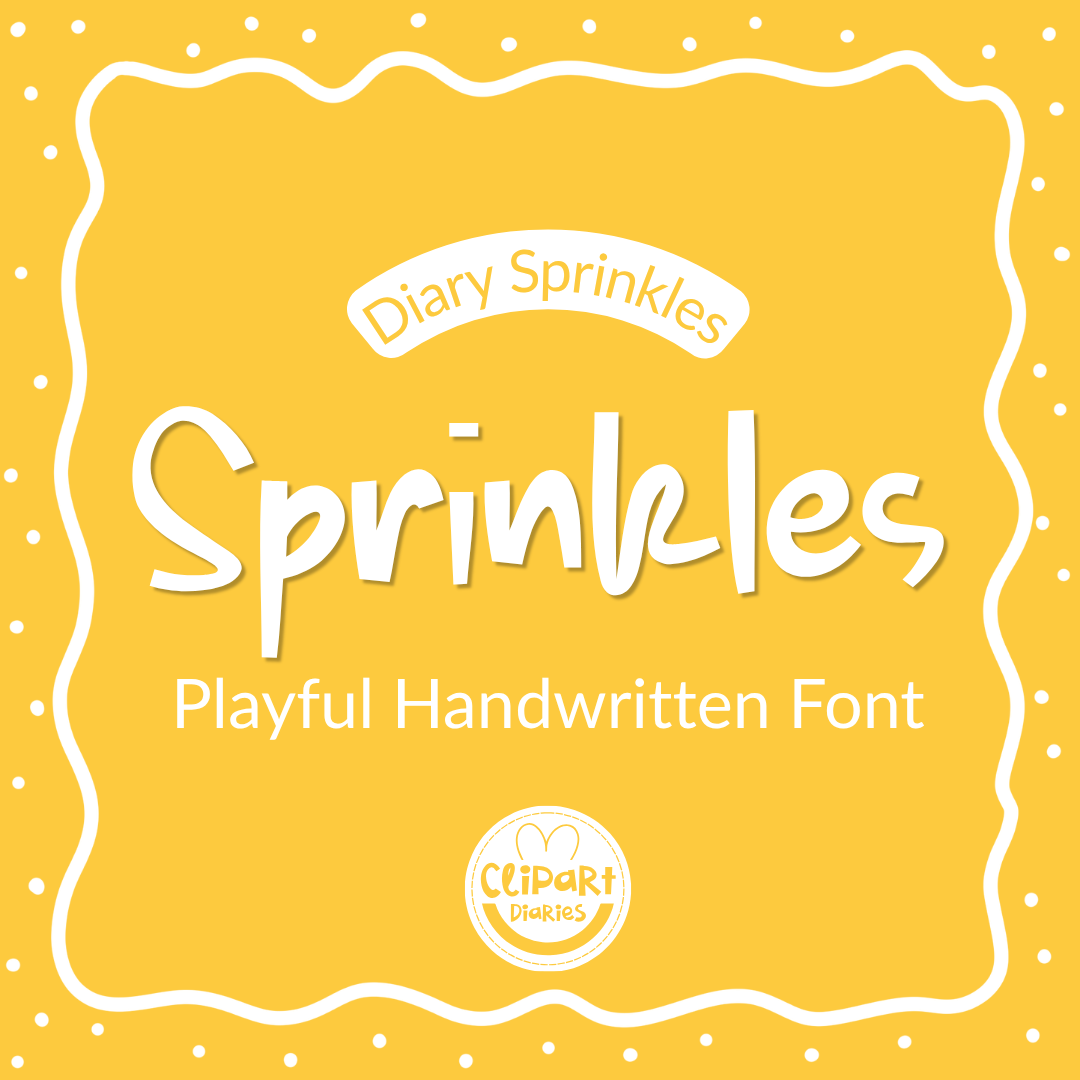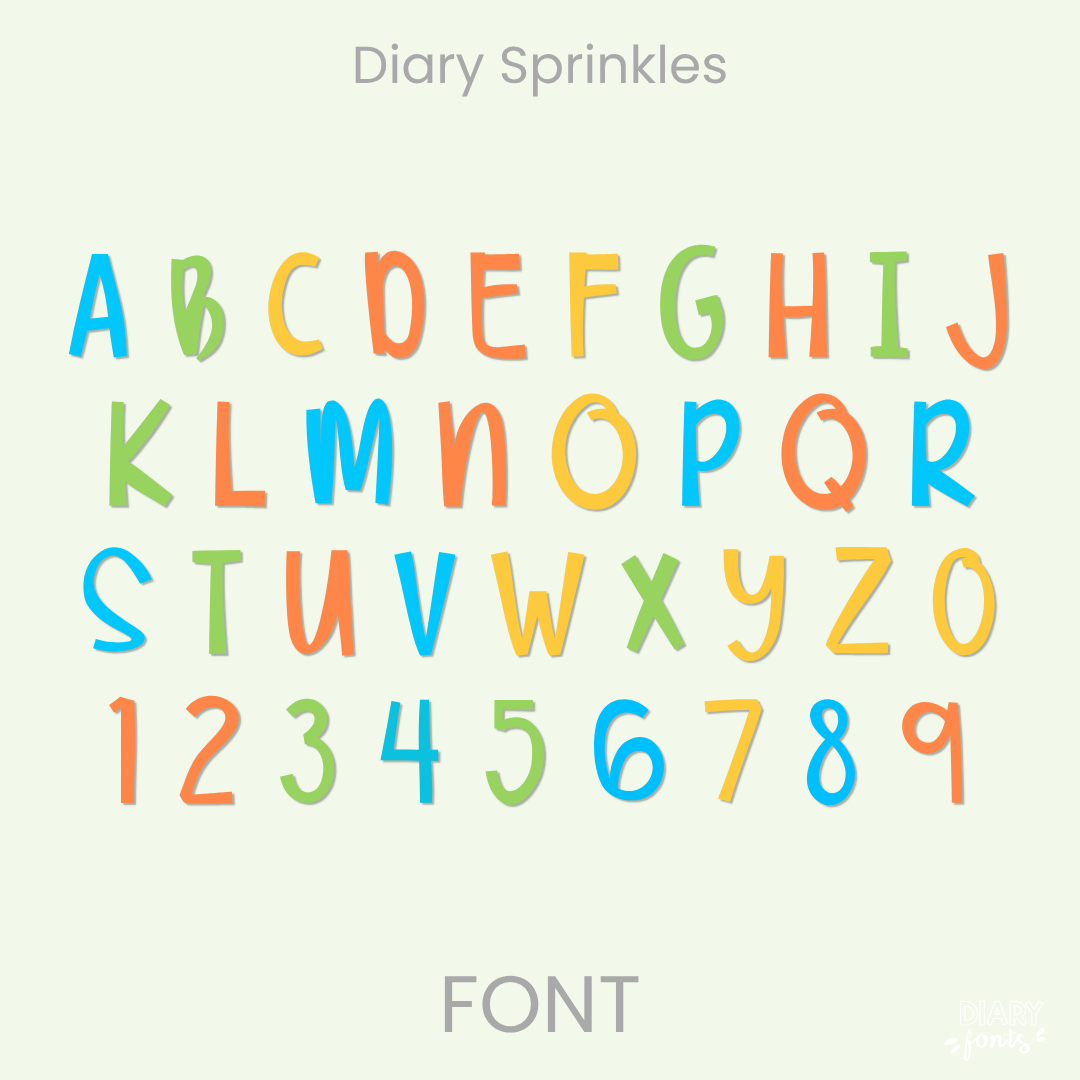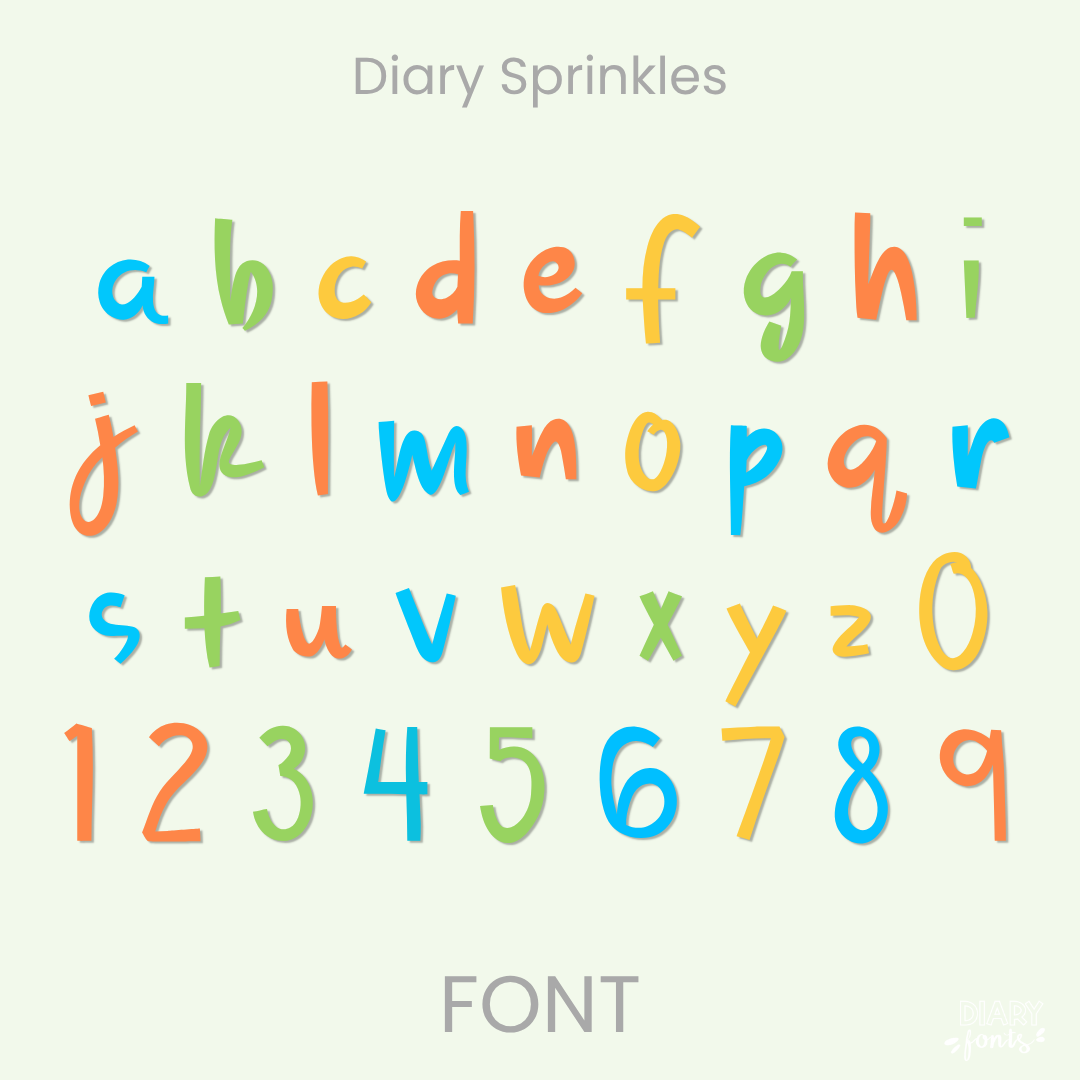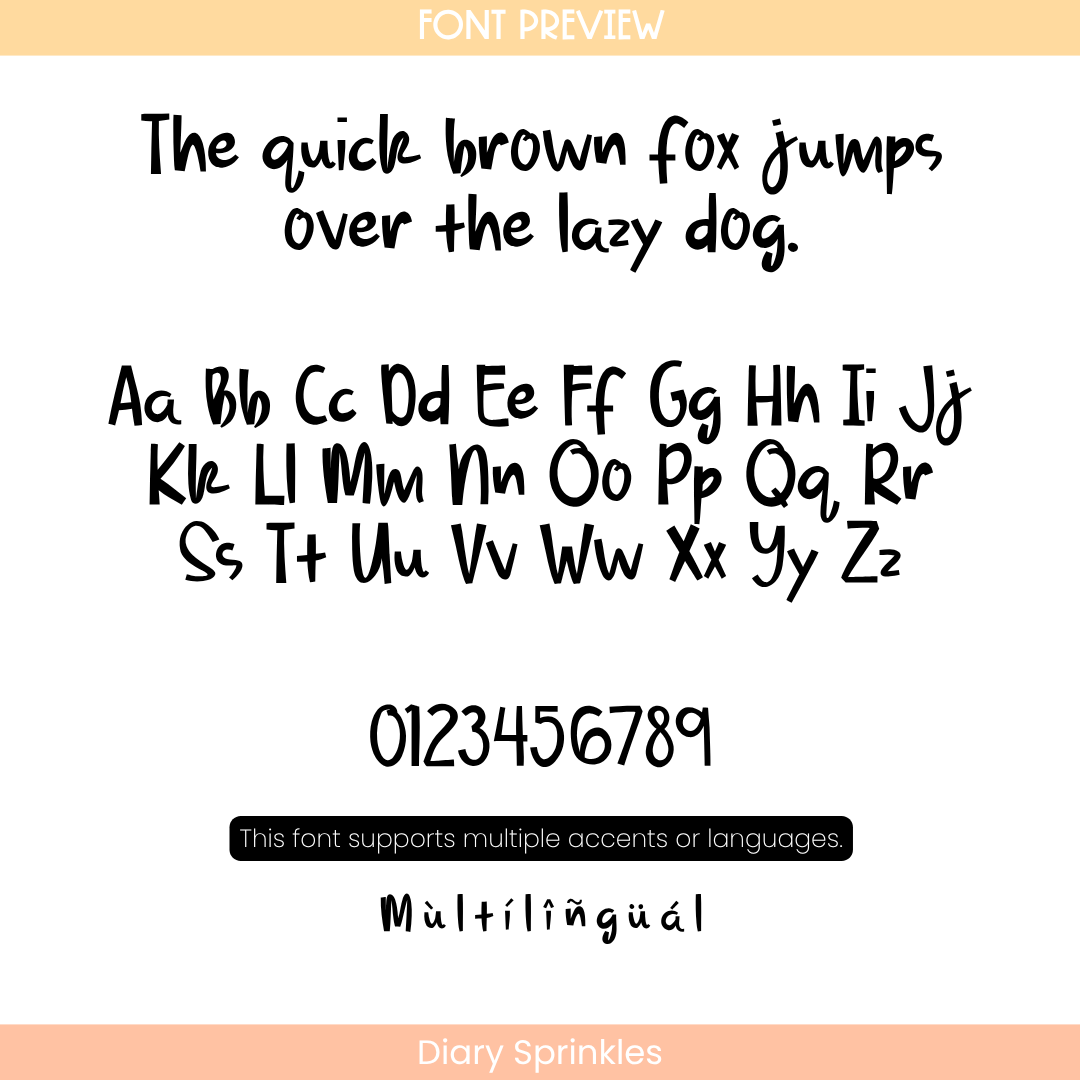
If you’ve been looking for a go-to playful handwritten font that has all the sweet charm of an organic script but keeps your text looking incredibly tidy, Diary Sprinkles is about to become your new absolute favorite. It features a beautifully quirky character structure with varying stroke weights that stay perfectly grounded along the baseline. Because these delightful hand-drawn letters are narrow, upright, and have plenty of generous breathing room between them, it completely eliminates visual clutter, making it an exceptionally clear and legible worksheet typography choice for your sweet students to read and track.
It is the absolute perfect choice for typing up festive holiday activities, elementary school worksheets, weekly spelling lists, and fun instructional slide fonts where you want an energetic vibe without sacrificing clear legibility. Inside the download, you’ll get a full set of neat uppercase and lowercase letters, matching numbers, and multi-accent marks for complete multilingual support. It drops right into Canva, MS Office, or Adobe on your desktop, and pairs beautifully with Procreate and GoodNotes on your iPad. Whether you’re prepping daily printables for your own sweet classroom or designing fresh new commercial-use educational resources for your online teacher shop, this decorative display heading font adds a touch of confident, sweet style to your creative toolkit.